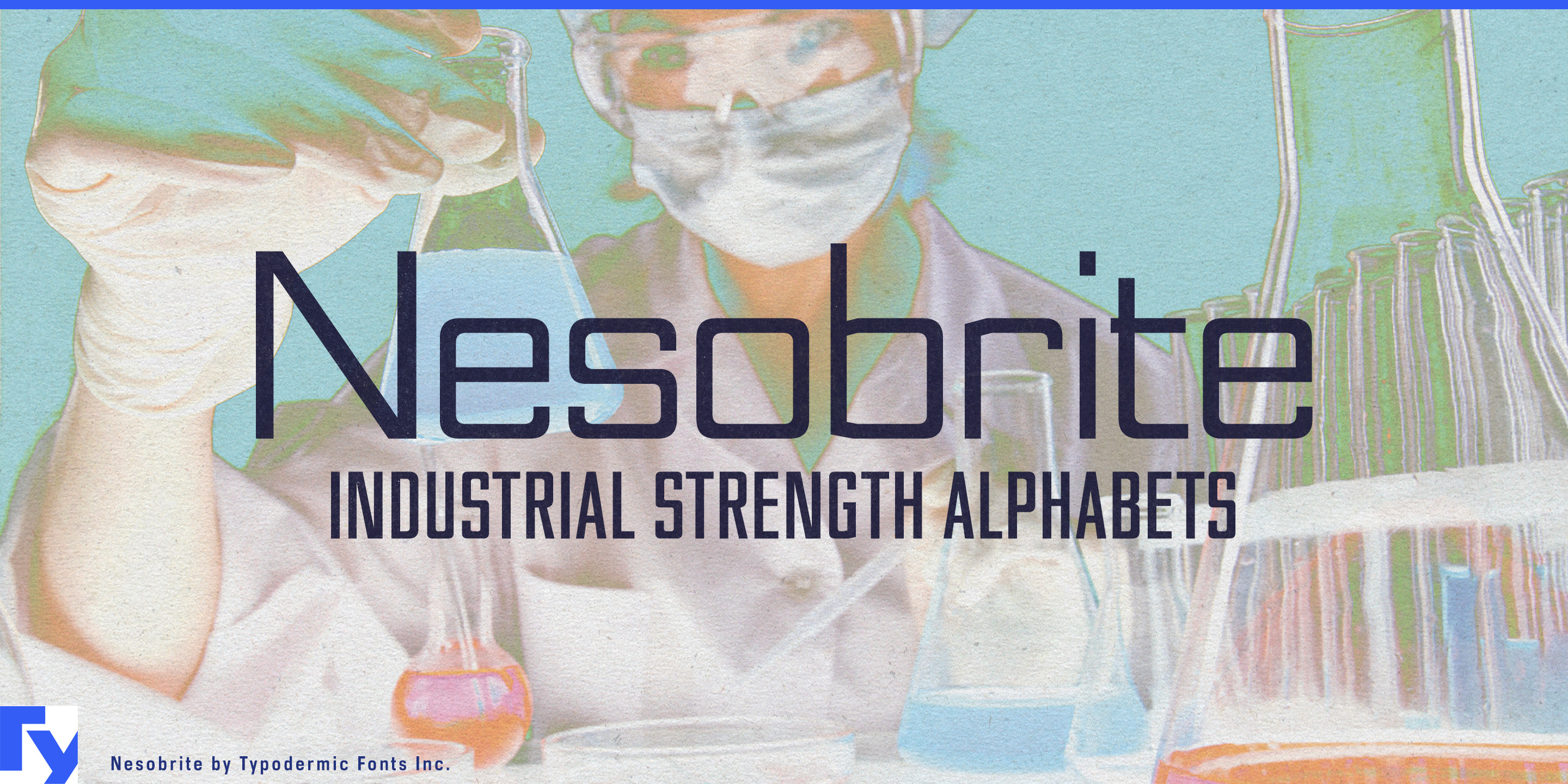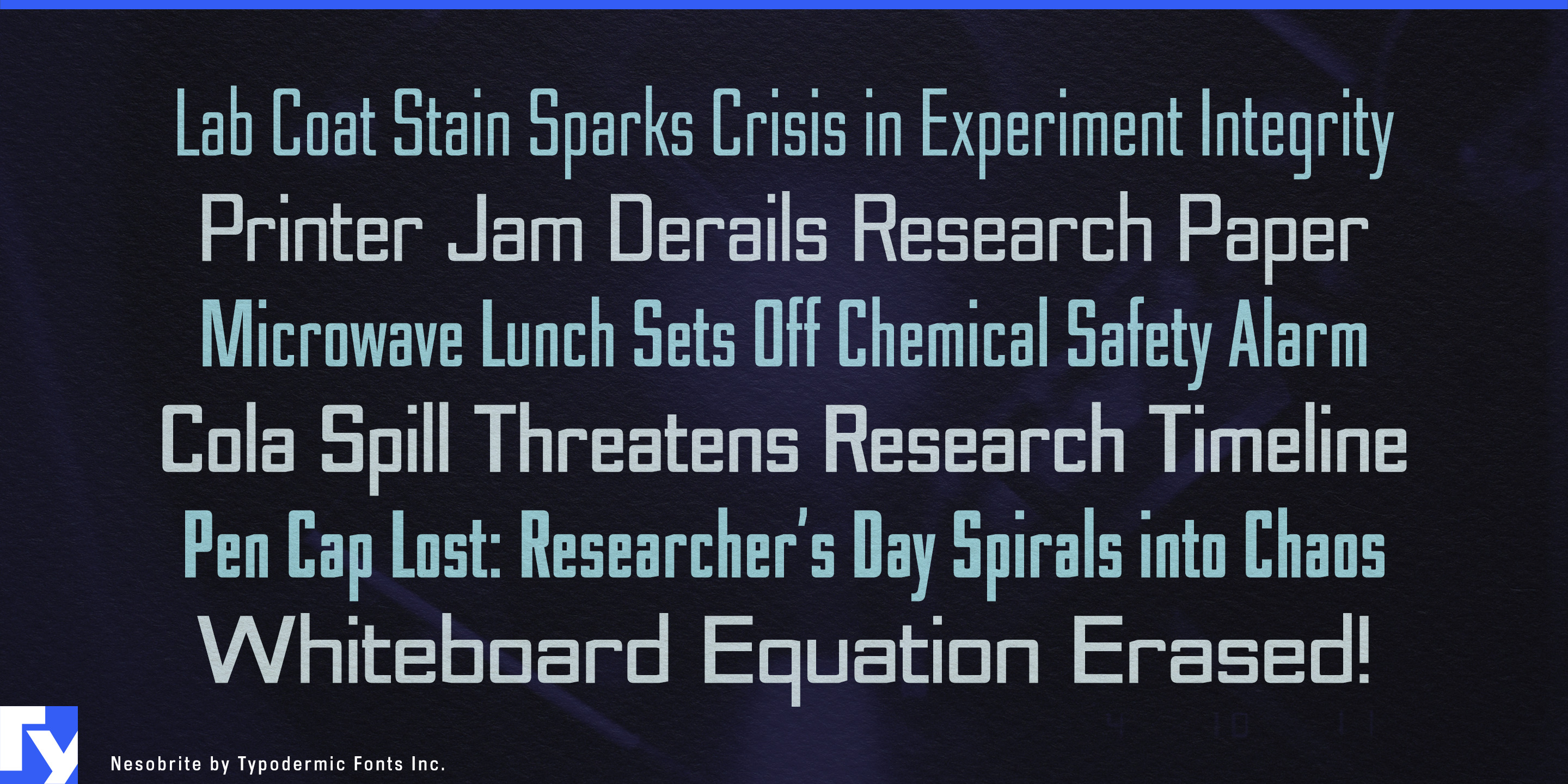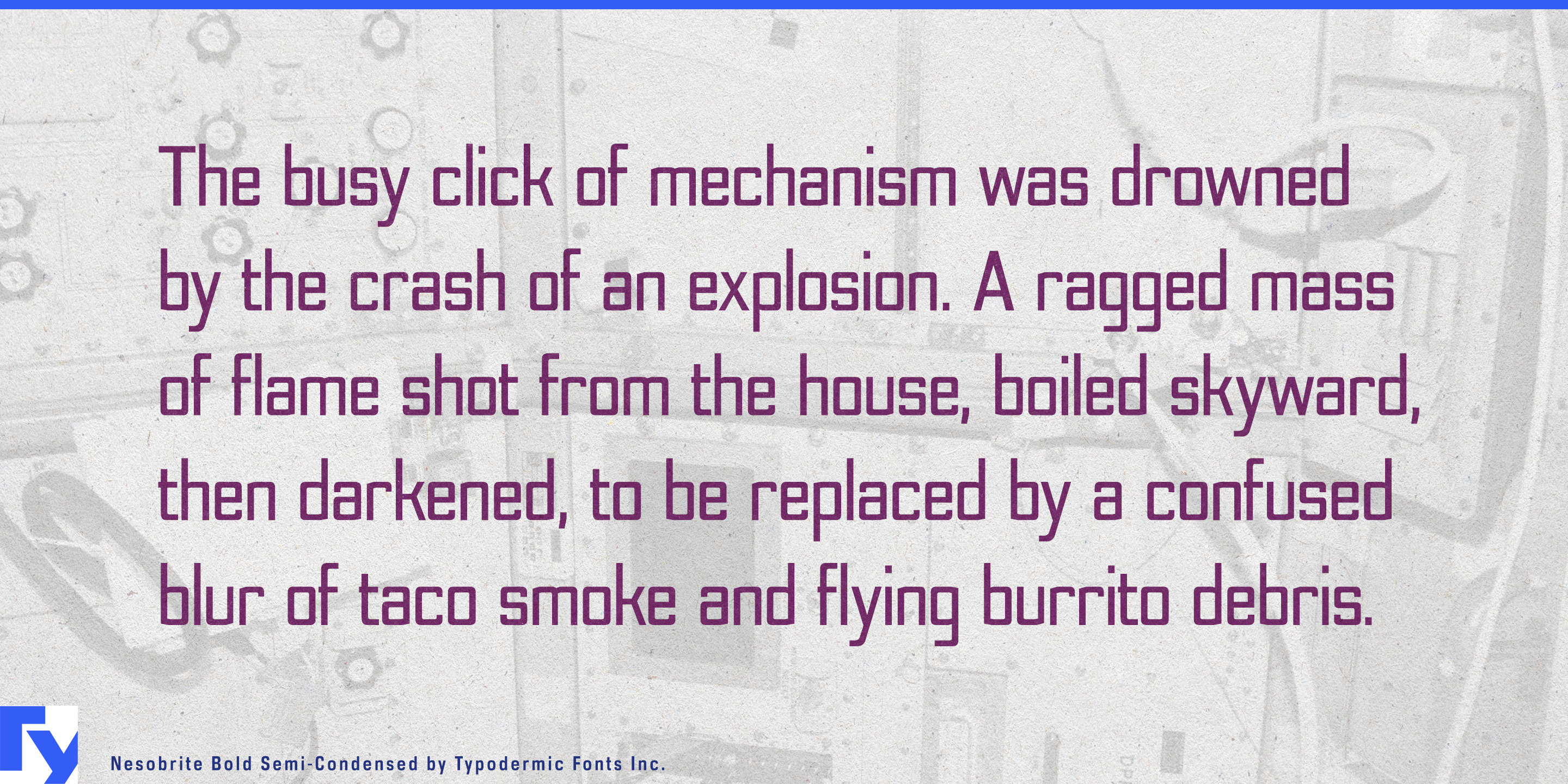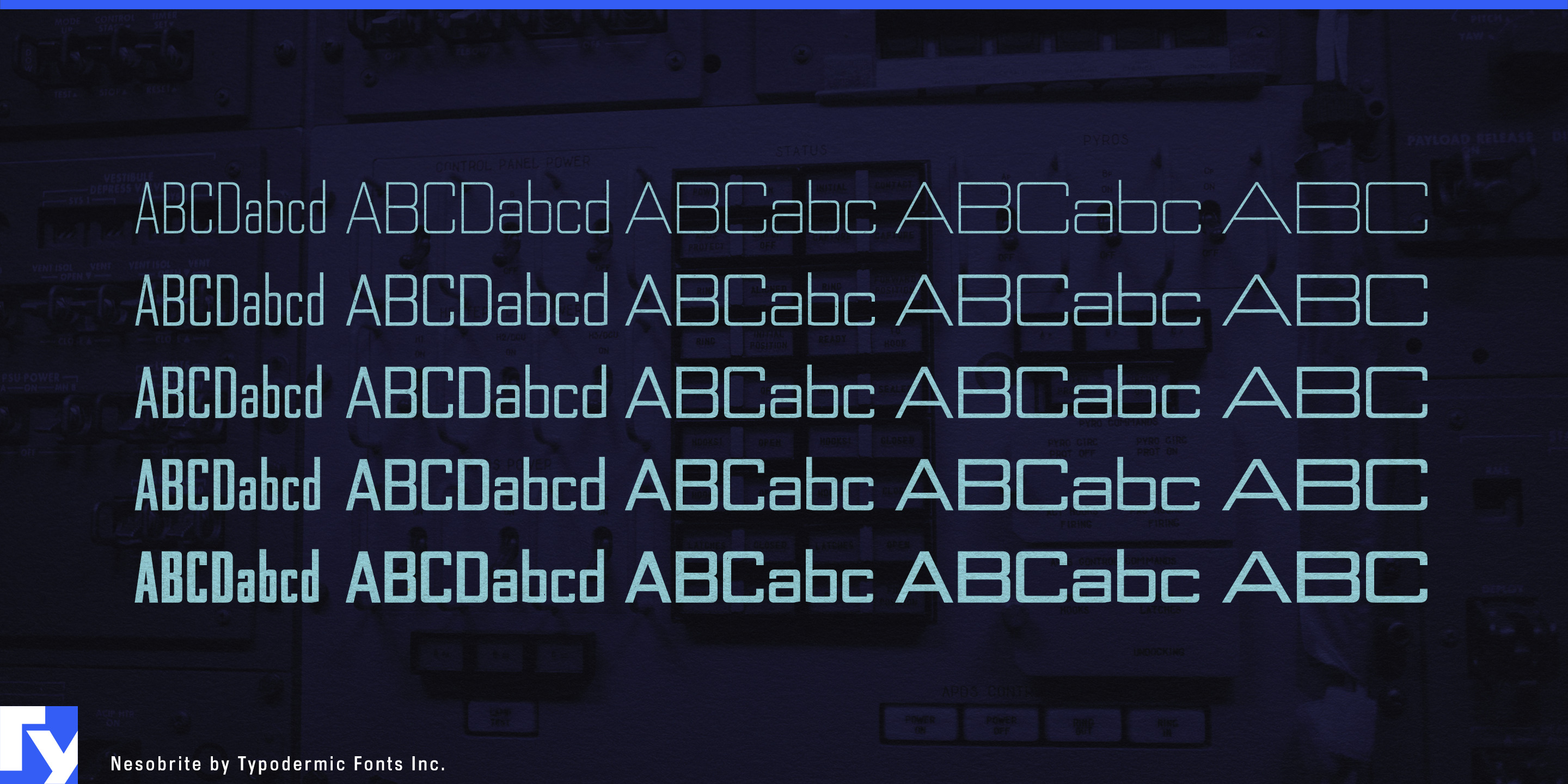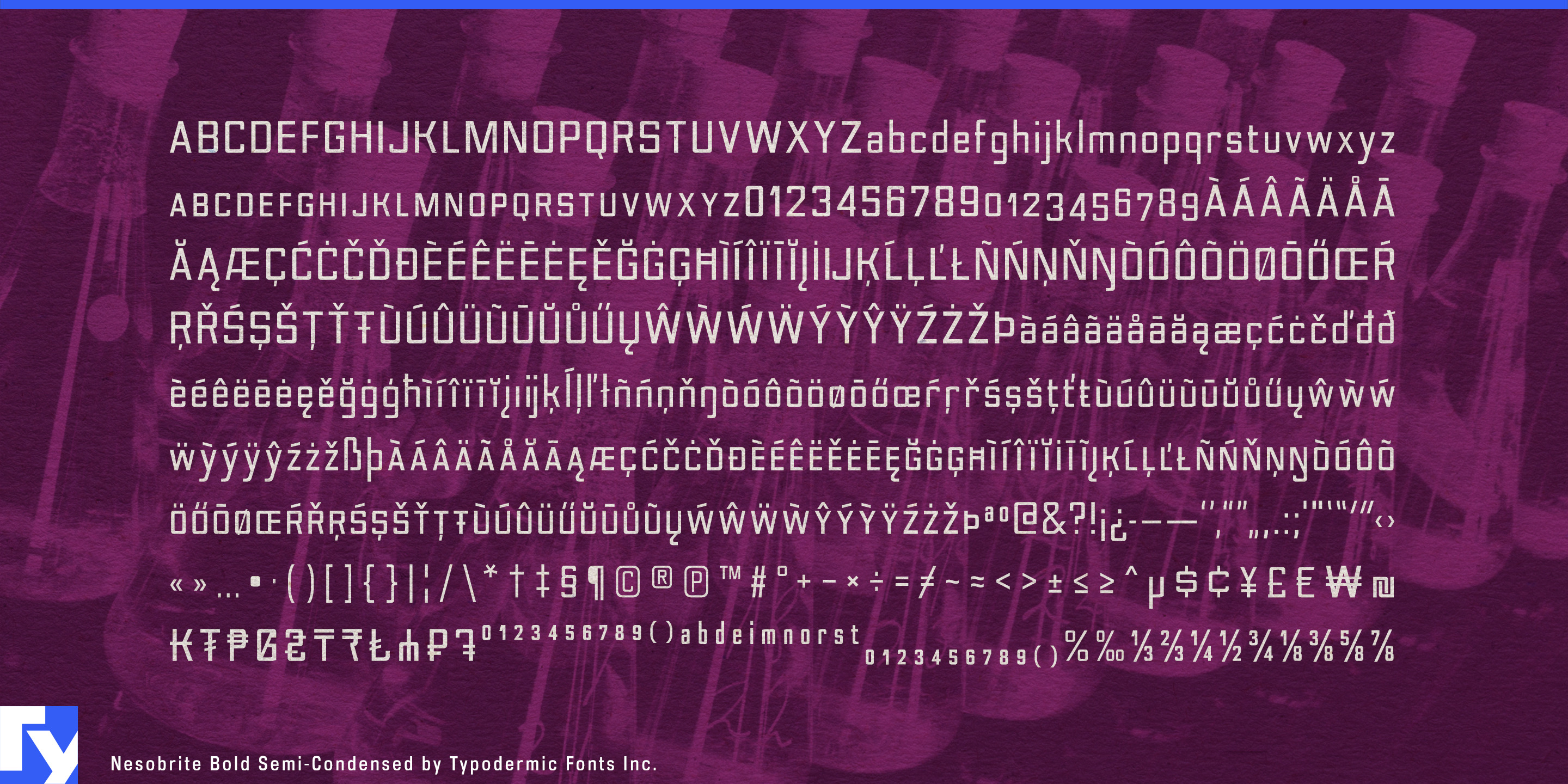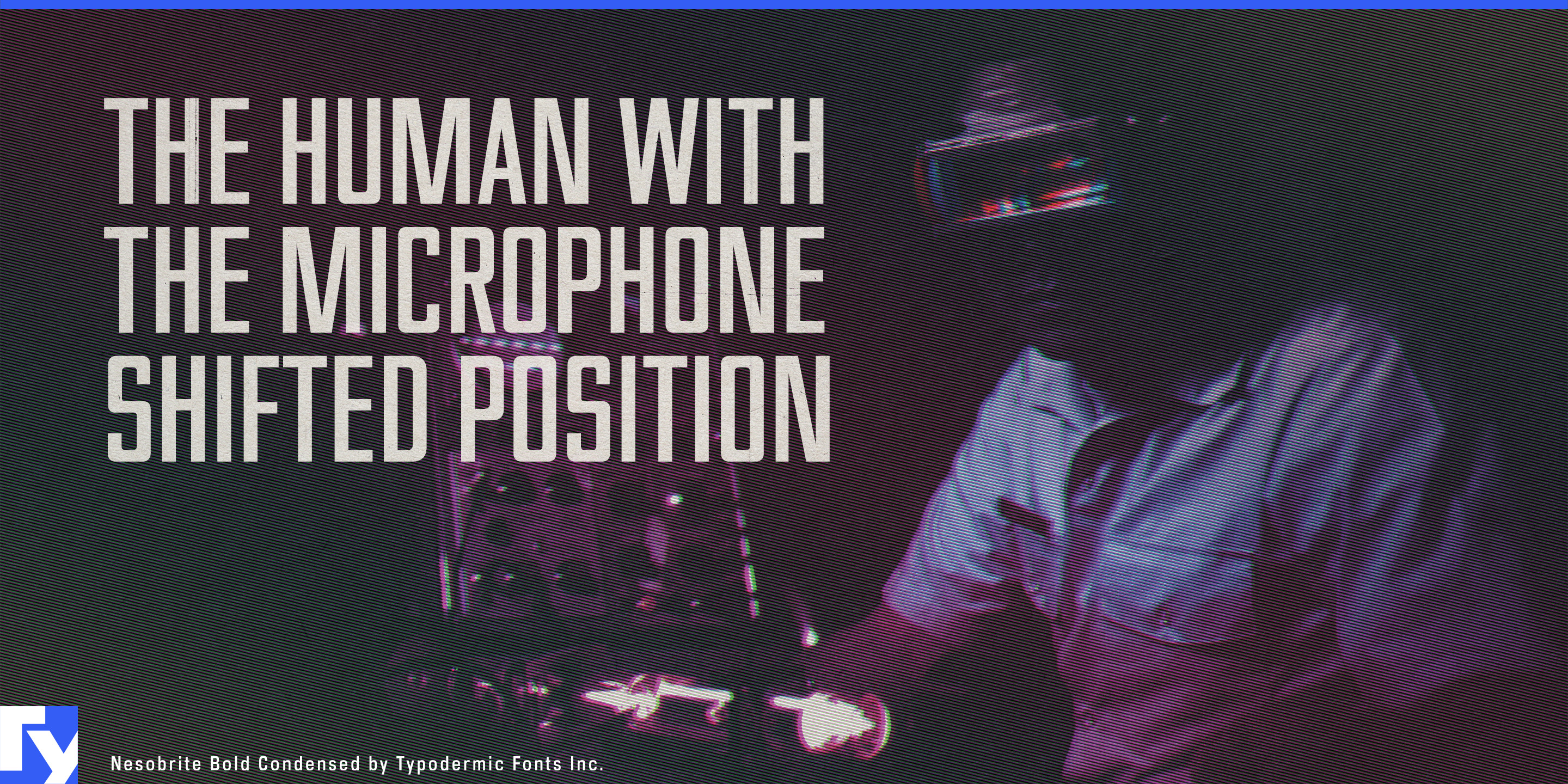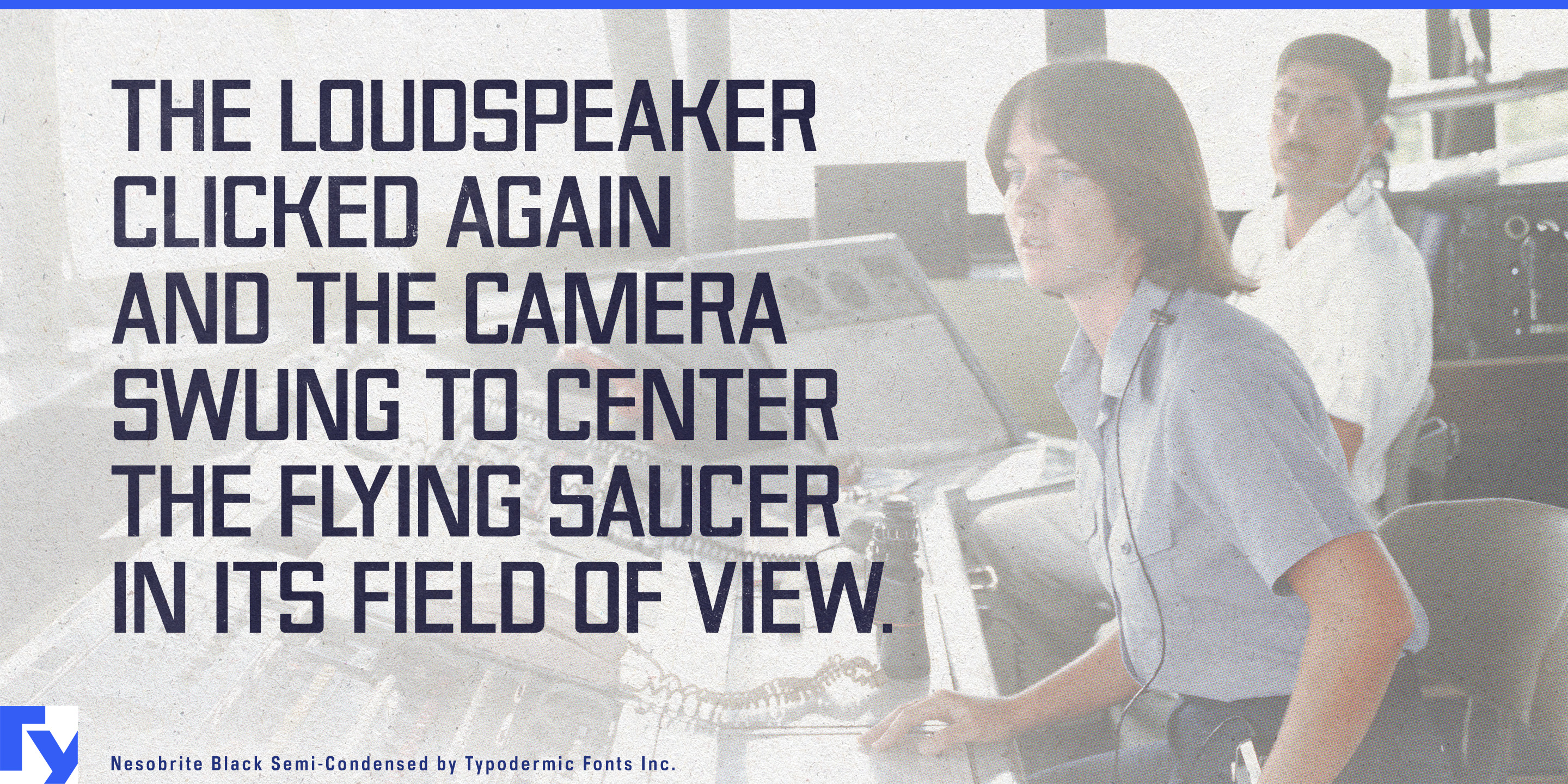
Nesobrite
Nesobrite is built for the front line of communication—where space is tight, clarity is critical, and style can’t take a back seat. With its squared forms, tall x-height, and rigid verticals, this is typography engineered for high visibility under pressure. Think control panels, transit signage, tech product packaging, and the kind of headline that has to be read at a glance from across the floor—or across the street.
Every character is a study in precision. Tight spacing and modular construction give Nesobrite a compressed efficiency that wastes no real estate, yet never sacrifices legibility. Its range of widths and weights lets you adapt from bold, all-caps proclamations to lighter, more measured titling—while italics add momentum without breaking the grid. Whether you’re marking industrial equipment, branding a heavy-duty product line, designing a sci-fi movie poster, or setting the stage for a music festival, Nesobrite delivers a mechanical confidence that demands attention. It’s the typographic equivalent of a precision-milled component: clean, strong, and made to fit exactly where you need it.
In a world of soft curves and generic sans-serifs, Nesobrite stands apart—unapologetically engineered, unapologetically bold. If your message needs to cut through noise with industrial strength, this is your toolkit. Load it up and make your mark.
- Rectangular, Modular, Low contrast